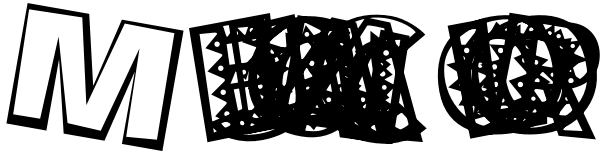
Mejicana
The PIXymbols™Mejicana fonts are designed to create both single color, and two-color titles. The fonts are designed for use in creating menus for Mexican restaurants, notices of festive occasions with a Mexican theme, promotion of Mexican folk...
Mejicana Color
Mejicana